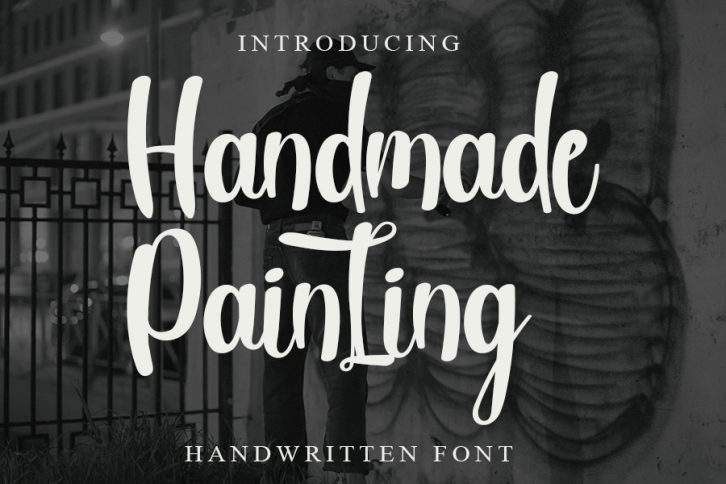
Handmade Painting is a cool handwritten font with a modern vibe and spotless form, inspired by a classic calligraphy. Not too thin and not too thick, balanced and varied, this font was designed to enhance the beauty of your projects.